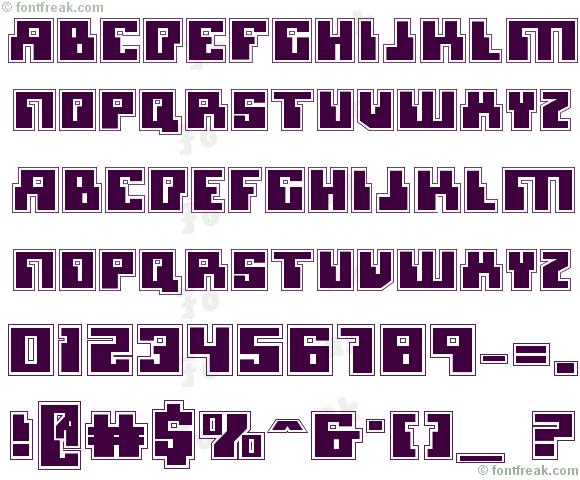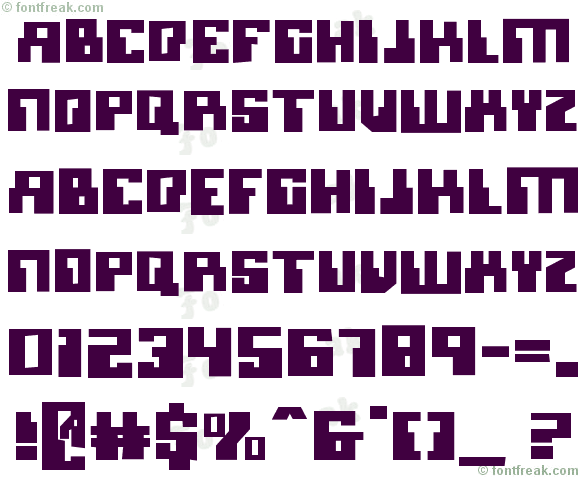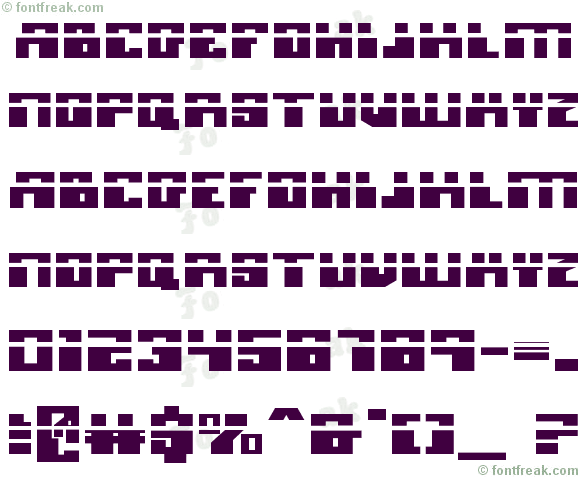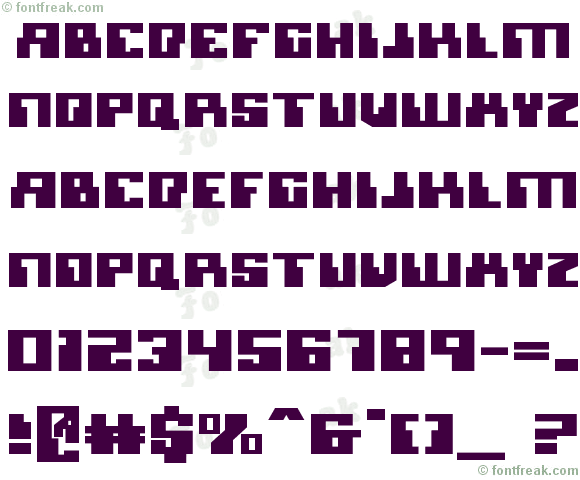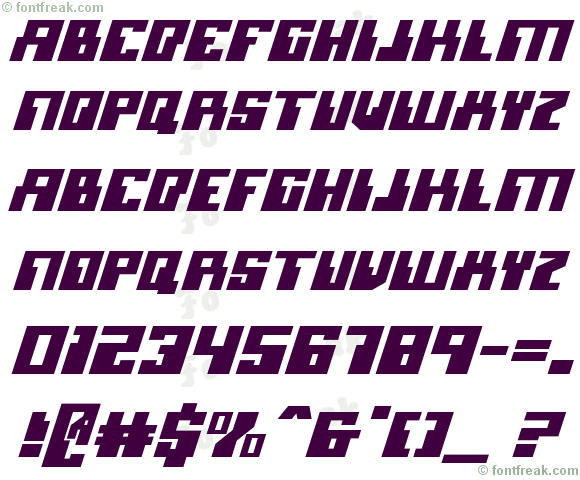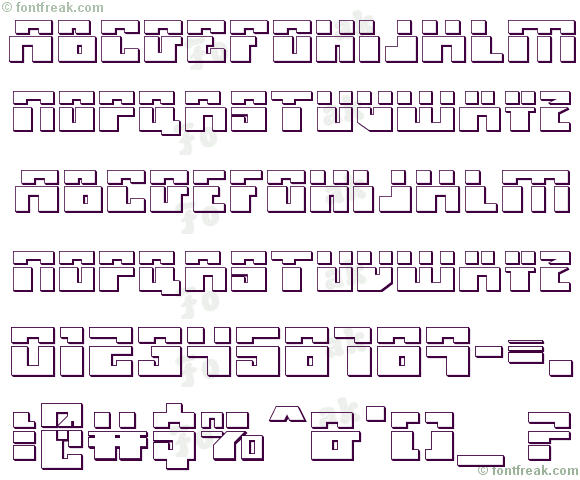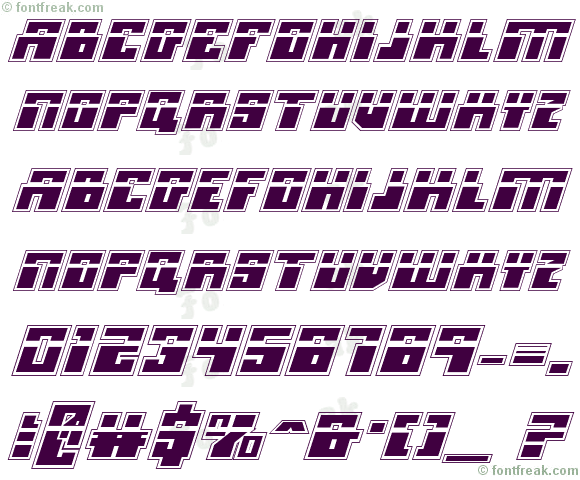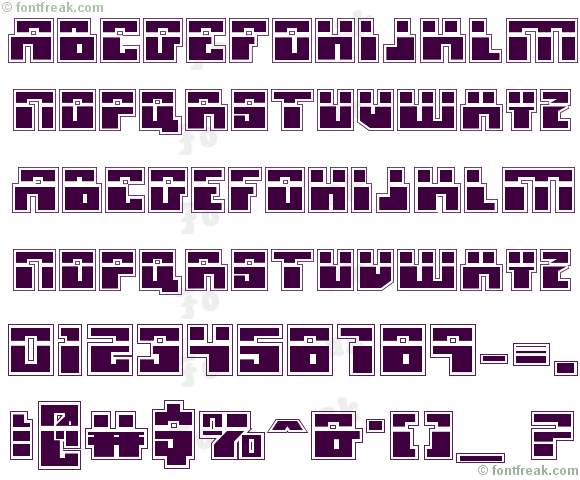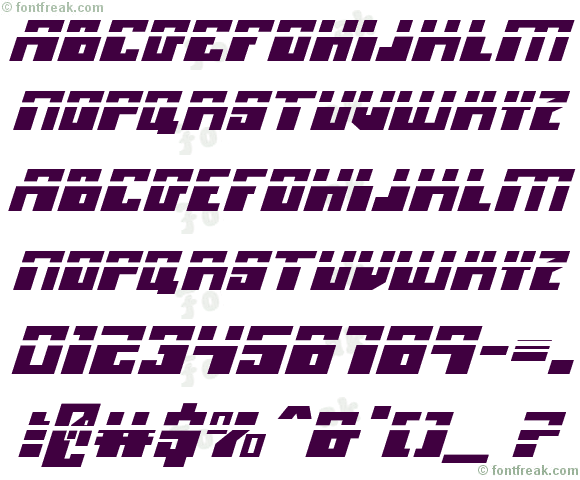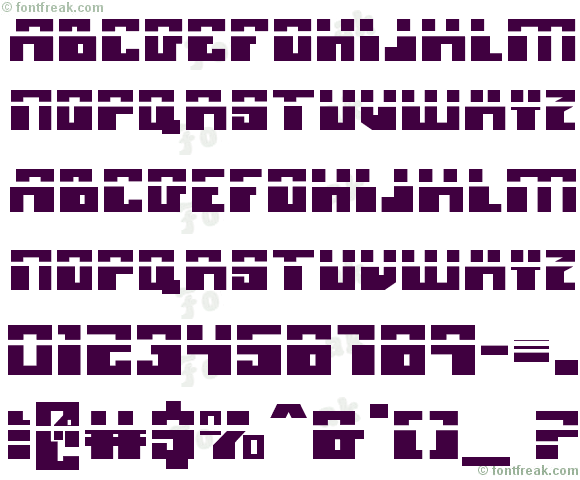
About Micronian
The Micronian font by Iconian Fonts is a striking display typeface that captures attention with its unique, futuristic design. This freeware font showcases an expanded, italic style, making it ideal for projects that require a bold statement. The 3D and blown effects contribute to its dynamic appearance, giving it a sense of depth and movement that is not commonly found in standard typefaces. The stroke weight is consistent, providing a clean look, while the spacing between characters ensures readability even in larger formats.
Micronian is particularly well-suited for a variety of creative applications. Its distinctive style makes it perfect for movie posters, where grabbing the audience's attention is crucial. Additionally, it can be used effectively in graphic design projects such as promotional materials and branding for tech startups, as its modern aesthetic resonates with innovation. Restaurant menus looking to convey a contemporary vibe will also benefit from incorporating this font, as it adds a unique flair that sets the dining experience apart. Furthermore, content creators can use the Micronian font in social media graphics and video titles, ensuring their content stands out in a crowded digital space.
The target audience for this font includes graphic designers, small business owners, and content creators who are looking for a unique typeface that embodies creativity and modernity. Its versatility allows for various uses while maintaining a cohesive visual identity.